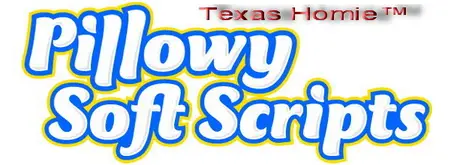
Pillowy Soft Scripts Fonts
You know: dryer sheets, paper towels, hand soap. For those who would like to emulate this freestyle flow, a call to a talented artist is in order, as most fonts are custom drawn for the brands they represent. Still, there are a few fonts convincing enough to be mistaken for a commissioned lettering job.
Versa™ by Peter Verheul for OurType®
Ambiance™ by Rob Leuschke for Bitstream®
FF Strada™ by Albert Pinggera for FontFont®
FF Tartine Script™ by Xavier Dupré for FontFont®
Blizzard™ by URW® from Julius Kirn’s Bison of 1938.
Zennor™ by Phill Grimshaw for Letraset®
FF Cocon™ by Evert Bloemsma for FontFont®
La Salle™ by Elsner+Flake®
Maiandra™ by Dennis Pasternak for Galapagos Design®
Brody™ by Harold Broderson
Bello™ by Underware®
Spring™ by Garrett Boge for Letter Perfect®